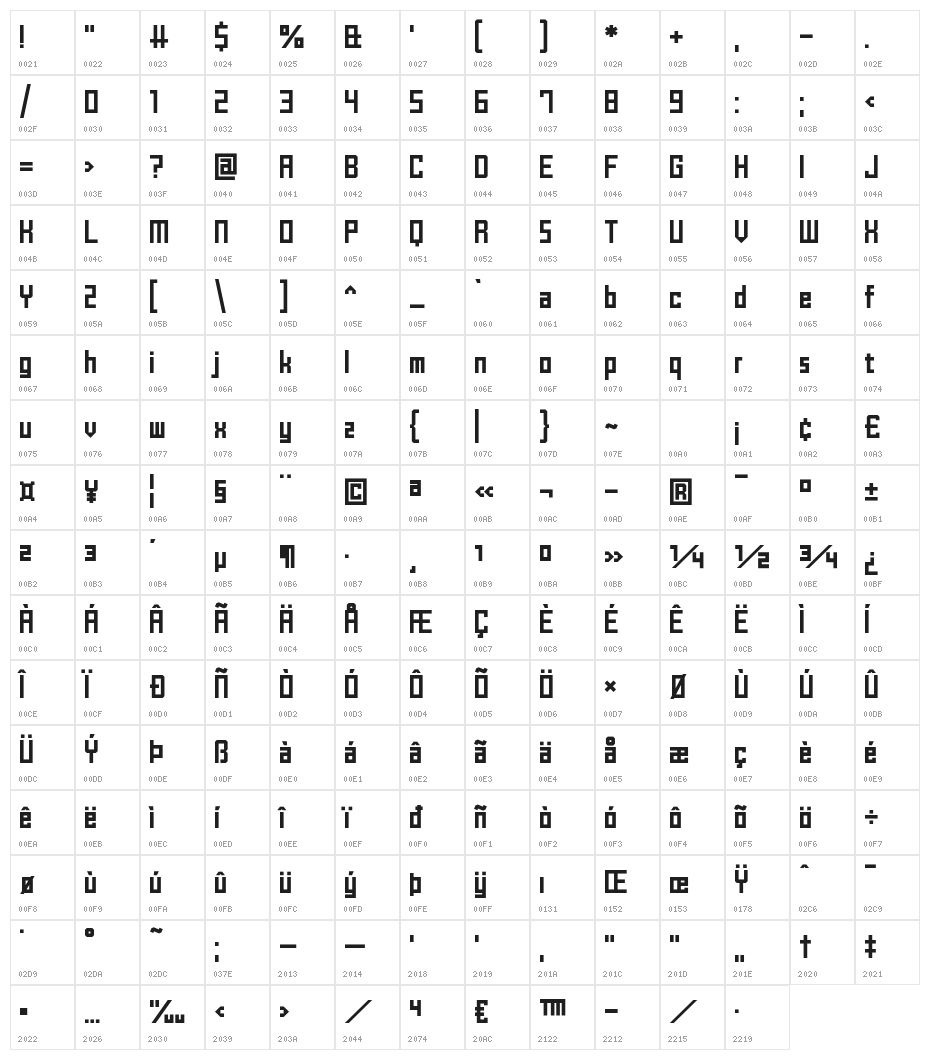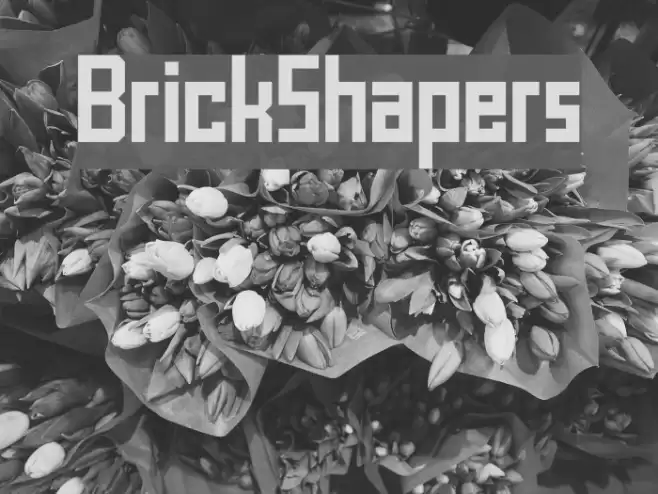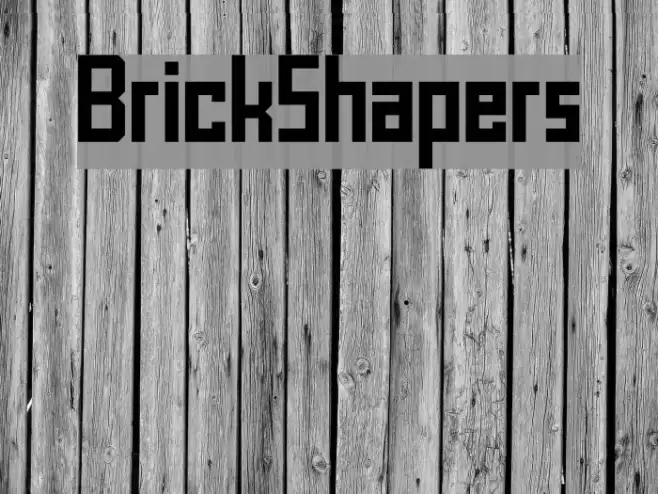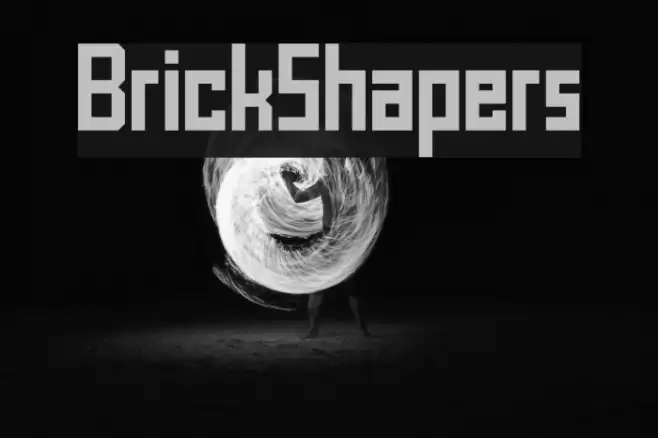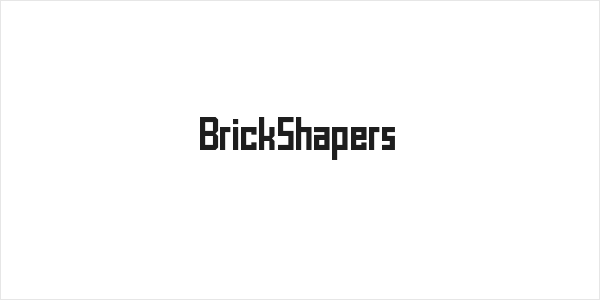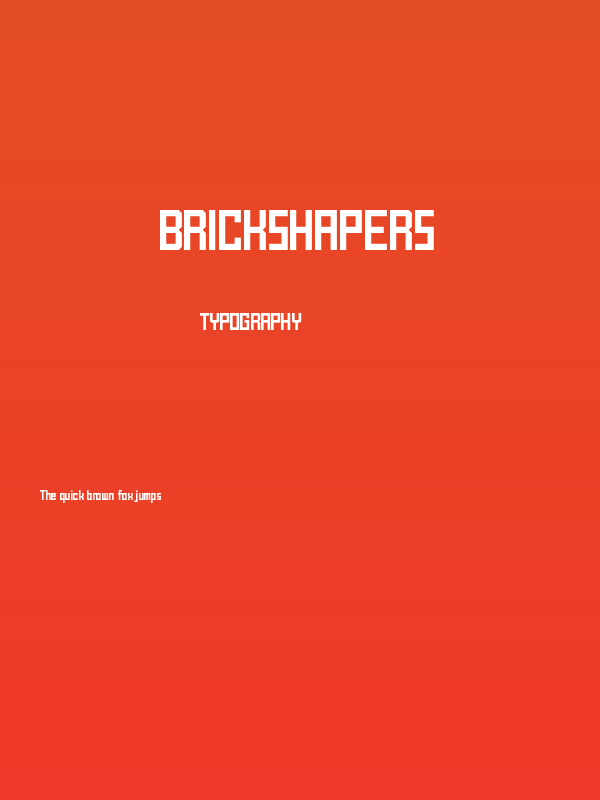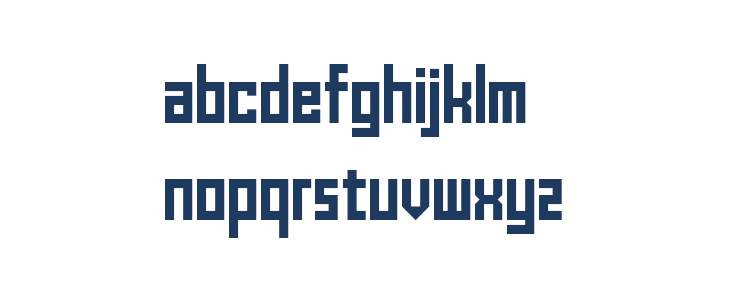
BrickShapers Font
BrickShapers Description
This font features a bold, geometric design with a blocky, angular appearance. Each character is constructed with straight lines and sharp corners, creating a modern and industrial feel. The uppercase and lowercase letters maintain a consistent height, contributing to a uniform look. The numerals and special characters are similarly styled, ensuring a cohesive aesthetic across all glyphs. The font's structure is reminiscent of architectural elements, making it ideal for projects that require a strong, impactful visual presence.